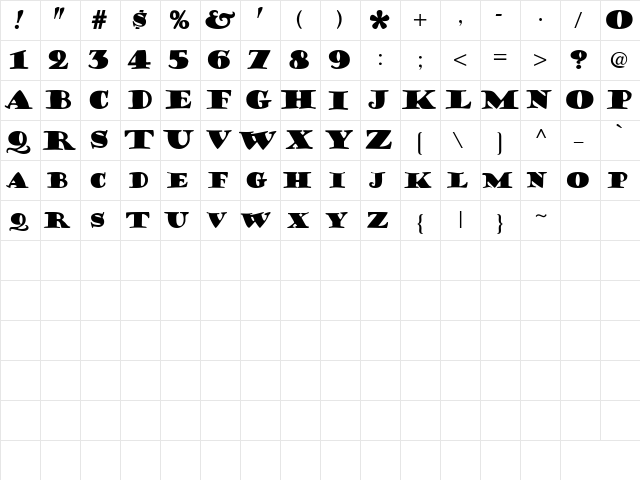
Hermann Bold Font Preview
Hermann Bold
Hermann Bold Font Details
Design Context for Hermann Typeface
Hermann is a composed and adaptable typeface that performs quietly and consistently across a wide range of design contexts. Its bold stroke weight gives it real presence on the page.